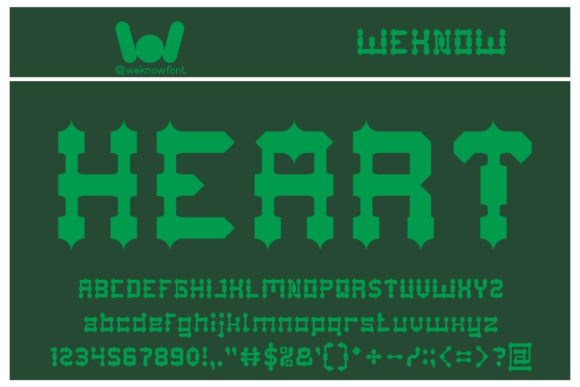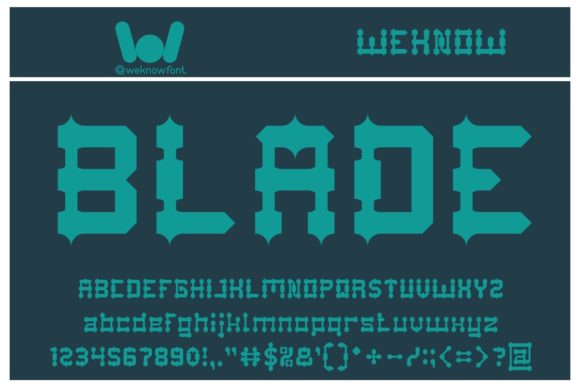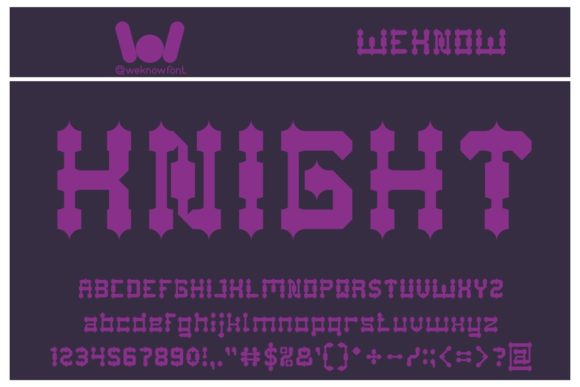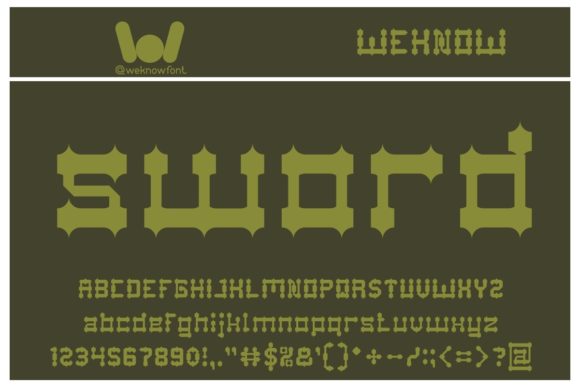
Drako Heart Font: The Ultimate Display Font for Spooky Designs
Are you looking for a font that will make your Halloween designs stand out from the crowd? Look no further than the Drako Heart Font. This cool, bold, and thick lettered display font is perfect for creating creepy and dramatic designs that will leave a lasting impression on your audience.
What is Drako Heart Font?
Drako Heart Font is a unique and eye-catching display font that is designed to add a touch of spookiness to your designs. With its bold and thick letters, this font is perfect for creating eye-catching headlines, titles, and captions that will grab the attention of your audience. Whether you’re designing a Halloween-themed poster, flyer, or social media graphic, Drako Heart Font is the perfect choice.
Key Features of Drako Heart Font
- Bold and Thick Letters: Drako Heart Font features bold and thick letters that are perfect for creating eye-catching designs.
- Creepy and Dramatic: This font has a creepy and dramatic feel to it, making it perfect for Halloween-themed designs.
- Display Font: Drako Heart Font is a display font, which means it’s designed to be used at larger sizes, making it perfect for headlines and titles.
- Easy to Read: Despite its bold and thick letters, Drako Heart Font is easy to read, even at smaller sizes.
Why Use Drako Heart Font?
There are many reasons why you should use Drako Heart Font for your Halloween designs. Here are just a few:
- Unique and Eye-Catching: Drako Heart Font is a unique and eye-catching font that will make your designs stand out from the crowd.
- Perfect for Halloween: This font is perfect for Halloween-themed designs, with its creepy and dramatic feel.
- Versatile: Drako Heart Font can be used for a variety of designs, from posters and flyers to social media graphics and more.
Design Ideas Using Drako Heart Font
Here are some design ideas that you can use Drako Heart Font for:
- Halloween Posters: Create eye-catching Halloween posters using Drako Heart Font.
- Social Media Graphics: Use Drako Heart Font to create spooky social media graphics that will grab the attention of your audience.
- Flyers: Design Halloween-themed flyers using Drako Heart Font.
- Invitations: Create spooky invitations using Drako Heart Font.
In conclusion, Drako Heart Font is a unique and eye-catching display font that is perfect for creating creepy and dramatic designs. With its bold and thick letters, this font is perfect for Halloween-themed designs. Whether you’re a designer or a crafter, Drako Heart Font is a great addition to your font collection.